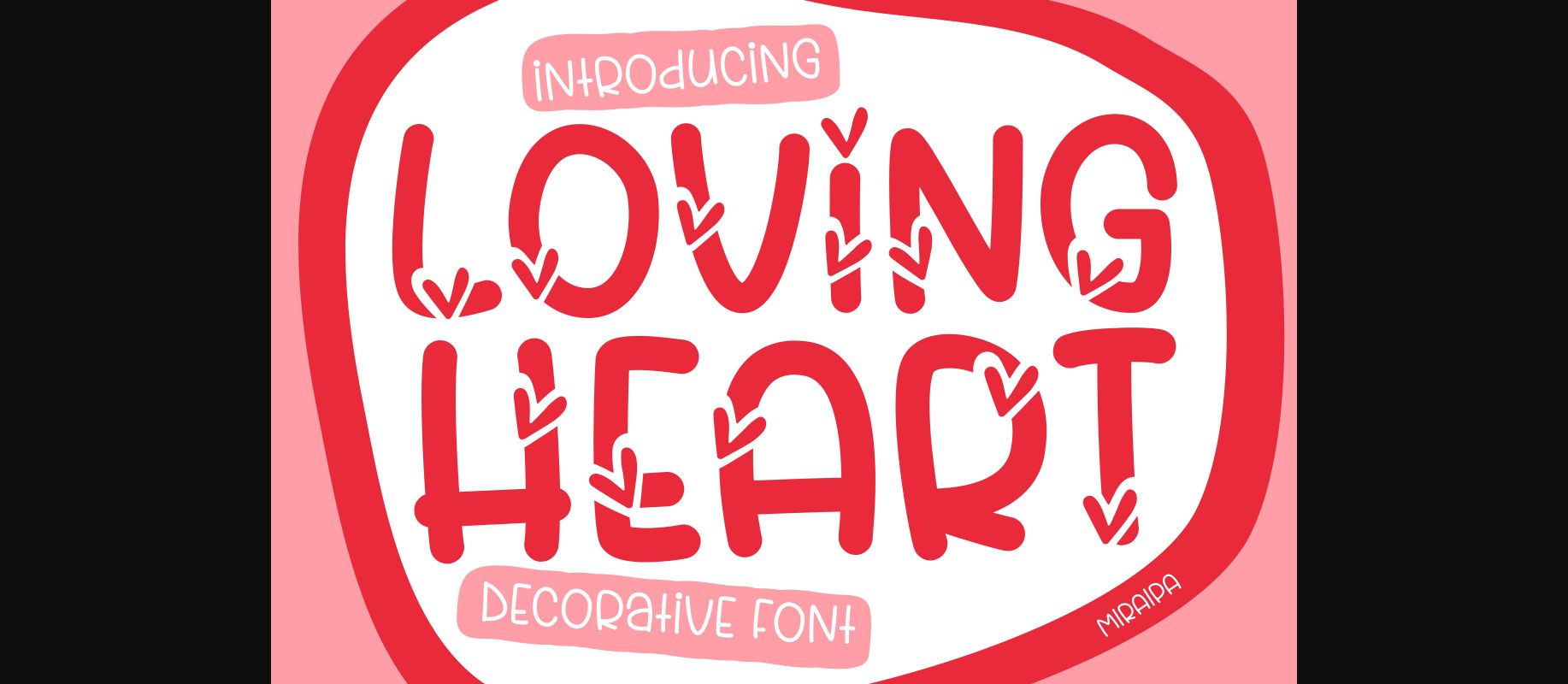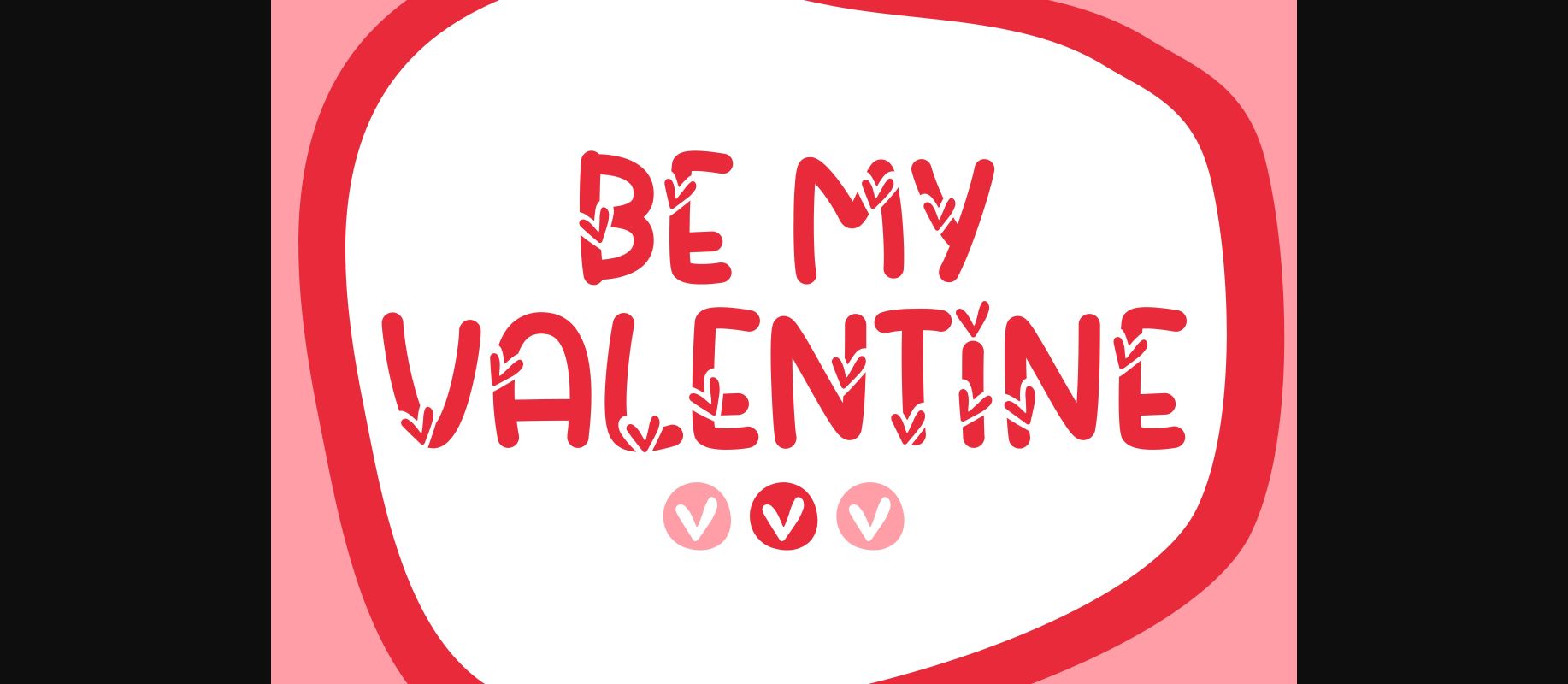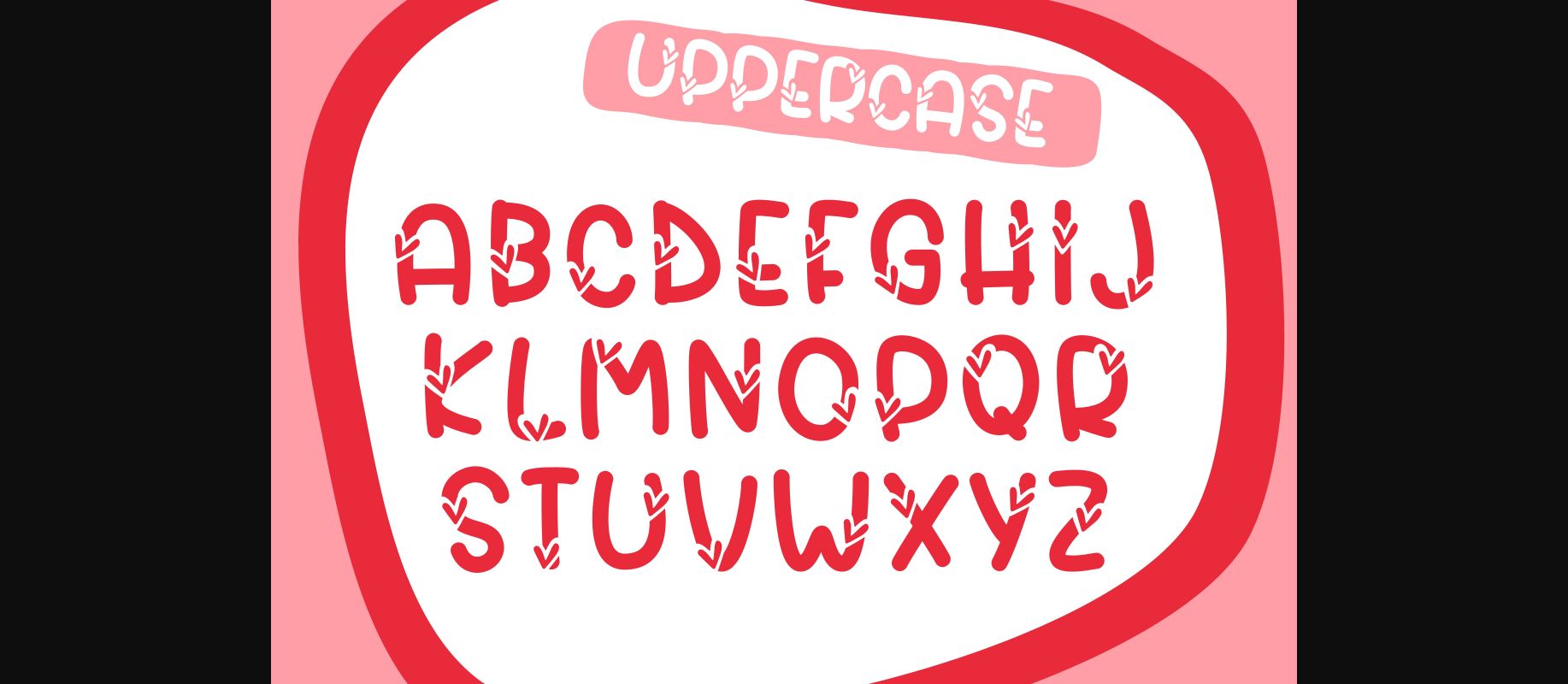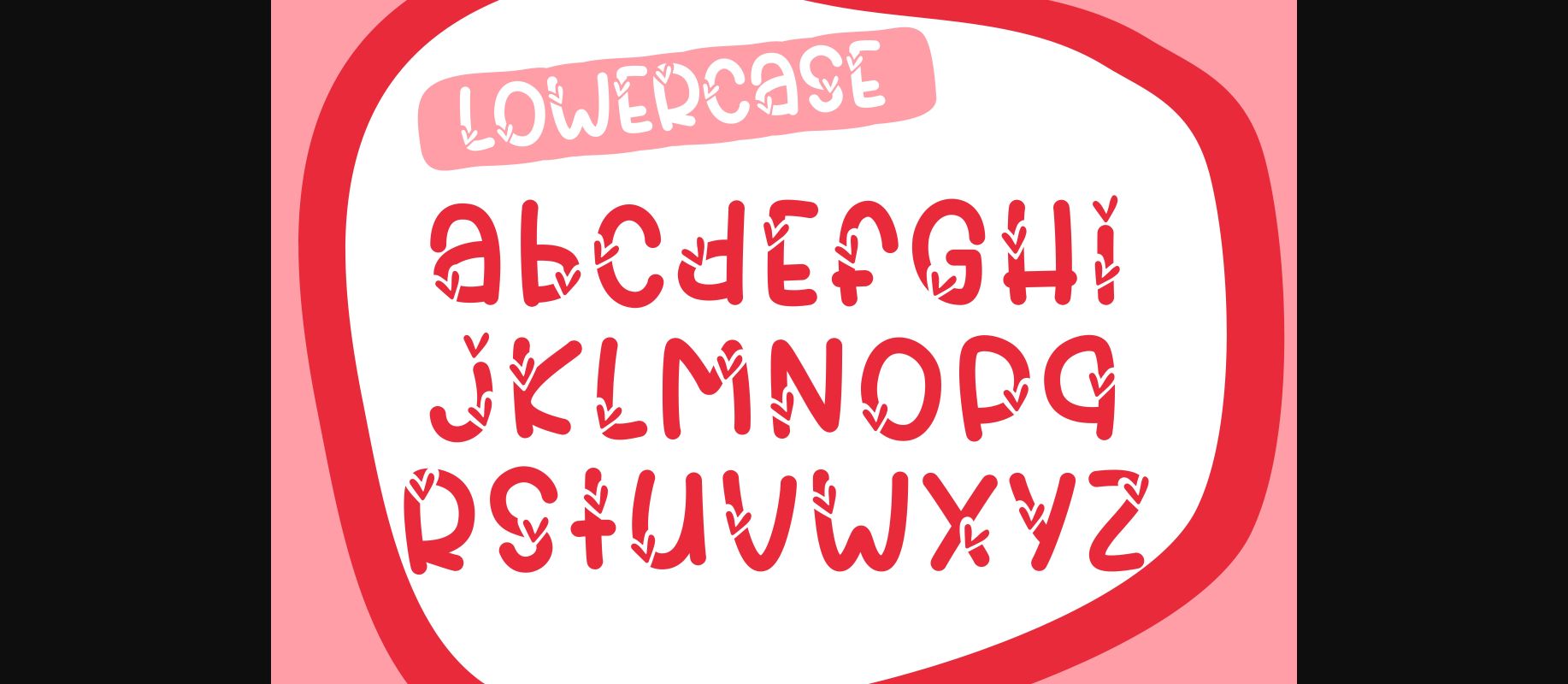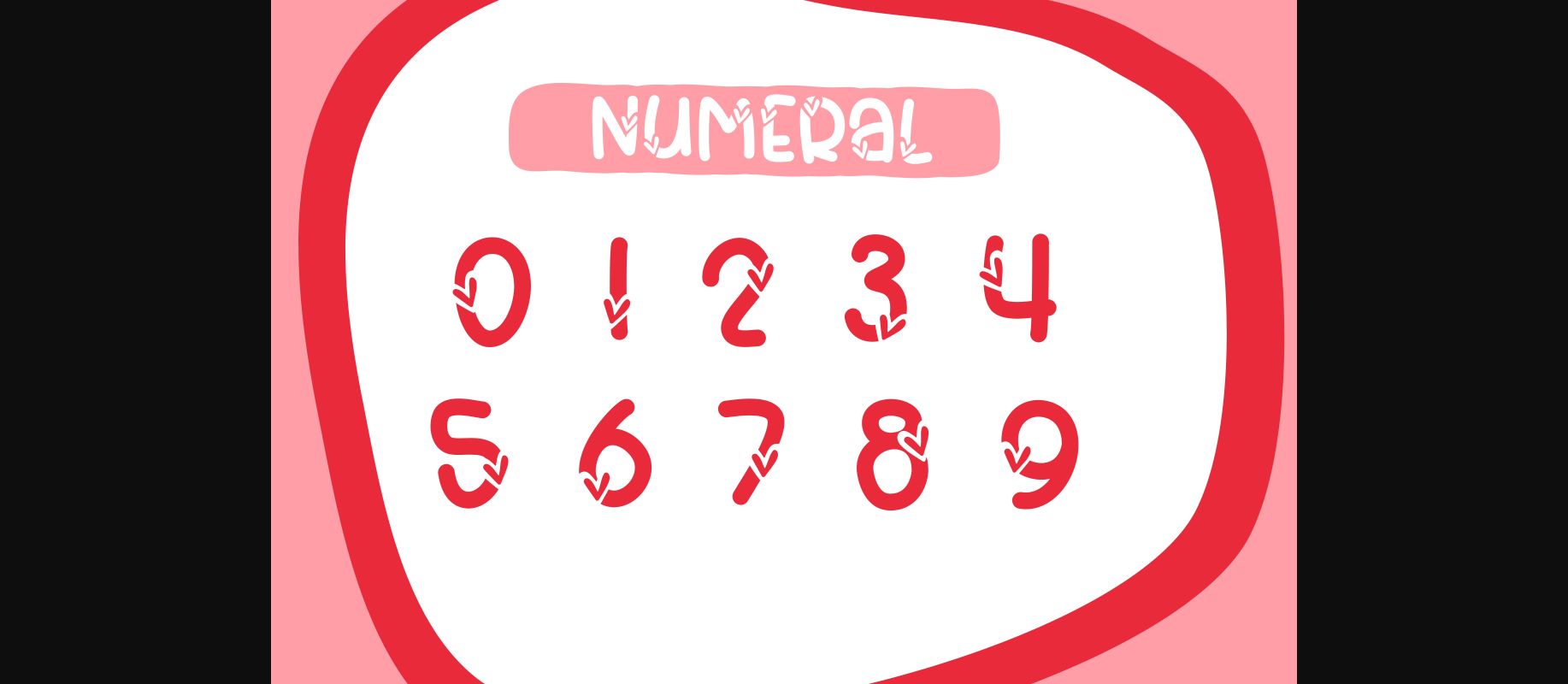
About Loving Heart Font
Loving Heart is a sweet and adorable decorative font perfect for your Valentine’s Day projects. Add it confidently to your crafty ideas and you will love the results!